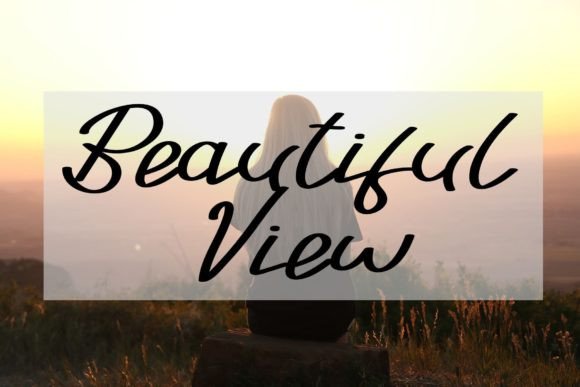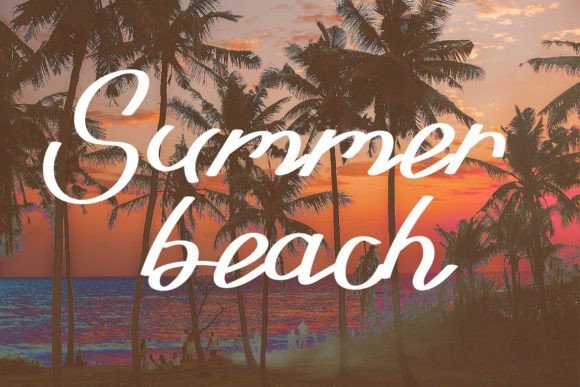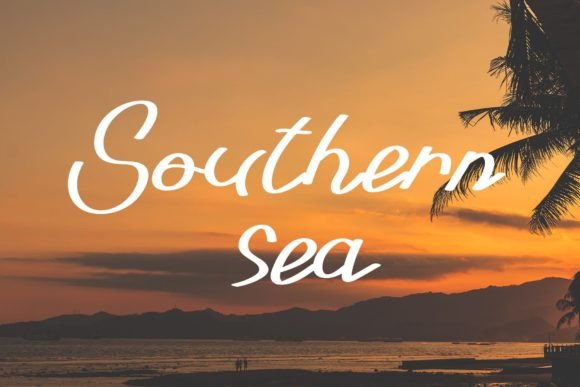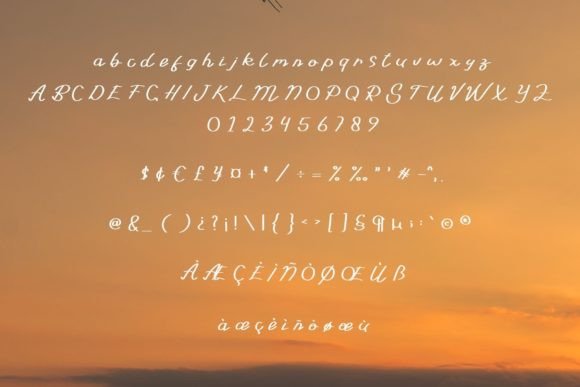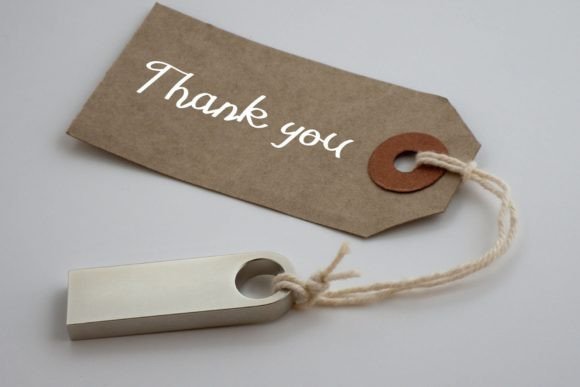
Sunset Font
About Sunset Font
Sunset is a fun and friendly handwritten font. Use it to turn any design idea into a true standout. Get inspired by its unique charm and create lovely designs.
“Sunset Font: Adding Fun and Friendliness to Your Designs
Introducing Sunset, a font that radiates a fun and friendly handwritten charm. With its distinctive personality, Sunset has the power to turn any design idea into a true standout. Let its unique charm inspire you and elevate your designs, creating a delightful and lovely visual experience.
Sunset isn’t just a font; it’s an invitation to infuse joy and character into your creative projects. Whether you’re working on graphics, posters, social media content, or any design endeavor, Sunset brings a playful and lively touch that captivates and stands out.
The fun and friendly handwritten style of Sunset adds a personal and approachable vibe to your designs. Its unique strokes and curves give each character a distinct flair, making your text come alive with a sense of creativity and warmth. Let Sunset be the creative spark that turns ordinary designs into vibrant works of art.
This font is an ideal choice for those who seek to create standout designs effortlessly. Sunset’s charm lies in its ability to break away from the ordinary, infusing a sense of fun and friendliness that resonates with a wide audience. Use it to add a touch of personality to your posters, banners, or any visual content.
Sunset invites you to embrace creativity and think outside the box. Its playful demeanor encourages experimentation and allows you to explore various design possibilities. Whether you’re creating invitations, greeting cards, or any other project that requires a touch of whimsy, Sunset is your go-to font.
In conclusion, Sunset is more than just a font; it’s a creative companion that adds a fun and friendly touch to your designs. Let Sunset be the source of inspiration that turns your creative ideas into standout visual experiences. Embrace the unique charm of Sunset and infuse your designs with the joy and creativity they deserve.”